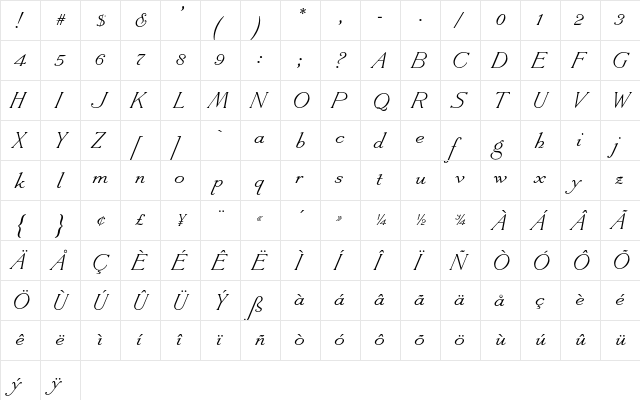
Antique Roman Slanted AT Regular
Design Context for Antique Roman Slanted AT Typeface
Antique Roman Slanted AT has the warm character of retro typography — evoking diners, record sleeves, and the golden age of print advertising. The slanted form adds forward momentum and visual energy.
Perfect for vintage-inspired branding, retro packaging, nostalgia campaigns, and period-accurate editorial design.
Font Pairing: Combine Antique Roman Slanted AT with a simple slab or neutral sans — period-accurate companions reinforce the vintage feel without competing for attention.
Pro Tip: Use Antique Roman Slanted AT for headlines and pull quotes rather than body copy — its personality is best appreciated in short, focused bursts.